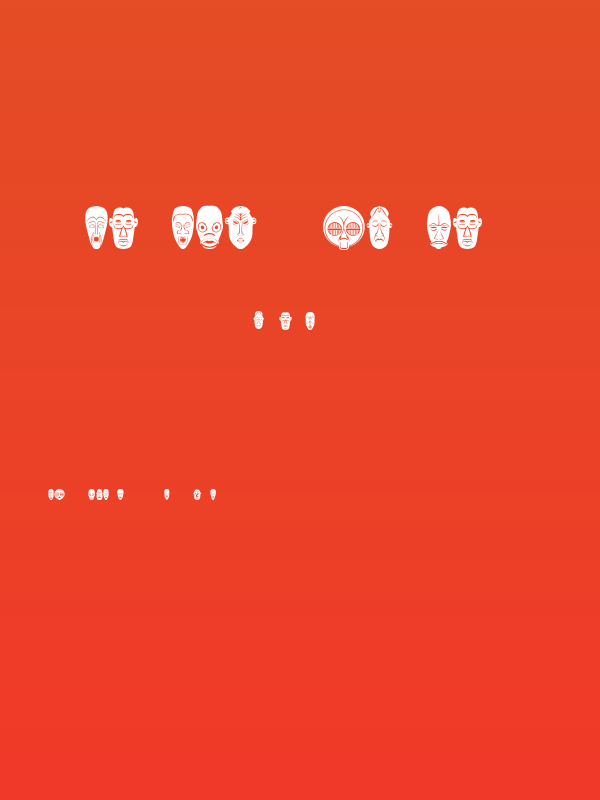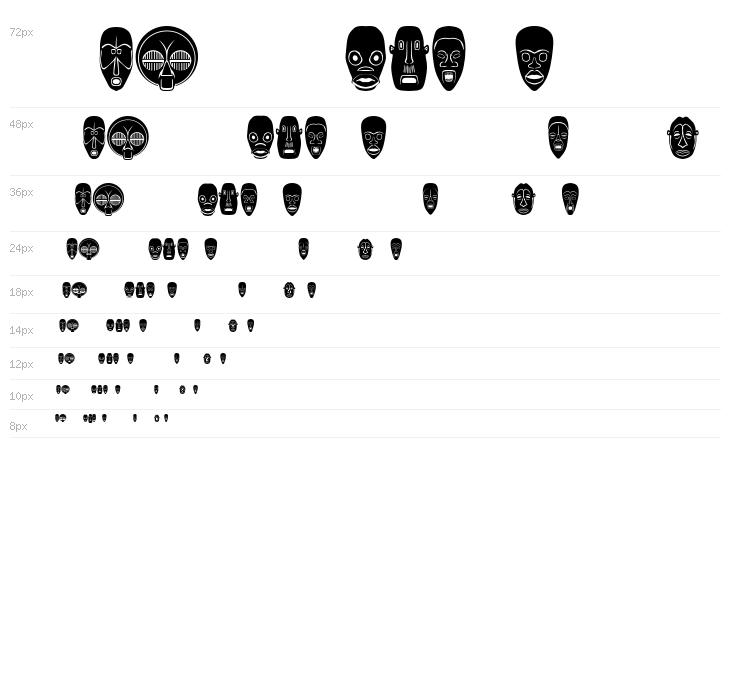
Maskid Regular Font
Maskid Regular Description
A decorative font featuring stylized mask illustrations for each character, with bold, solid black shapes and white line details, giving a unique and artistic appearance.
| Overall Style | Decorative, Artistic, Ethnic-inspired |
| Use Case | Logos, Headlines, Posters, Themed graphics |
| Proposed Projects | Posters, album covers, event branding, art projects, cultural or themed graphics. |